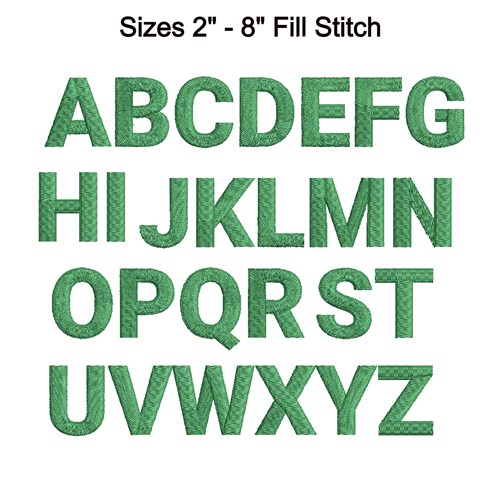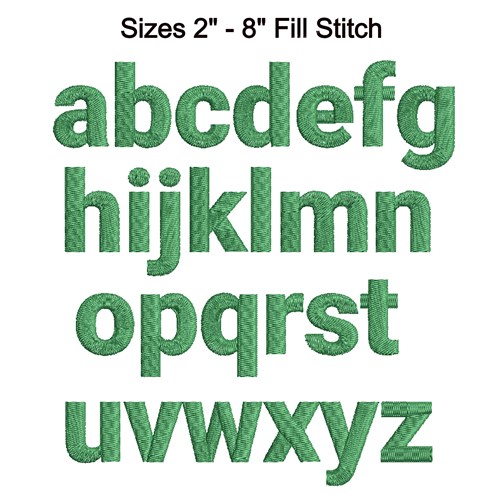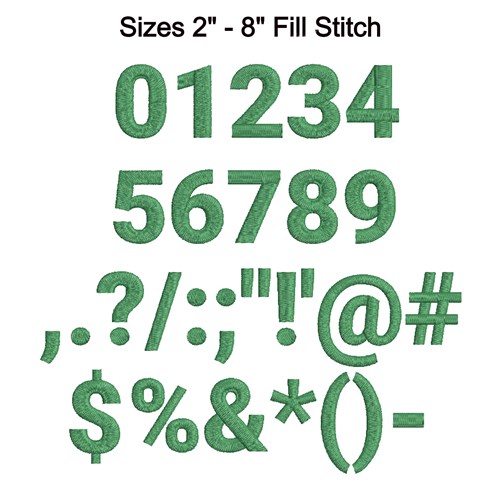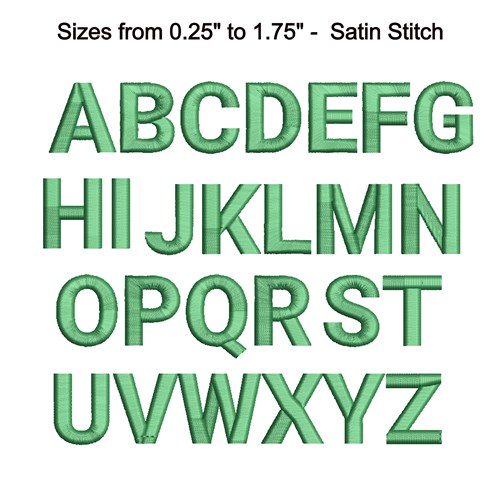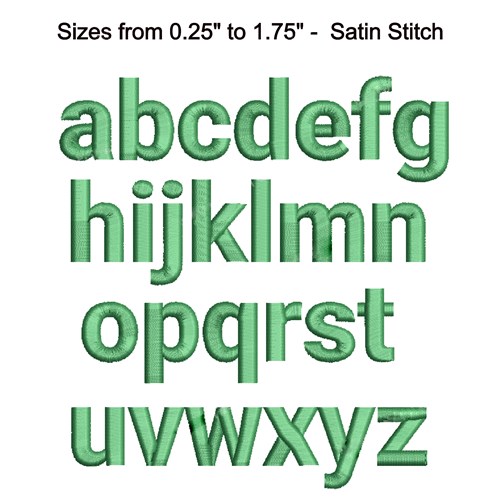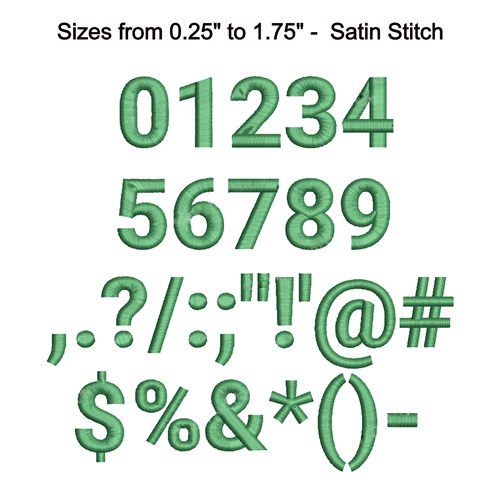
Artsy Knots is happy to present Classic Block Font machine embroidery font which has Classic block style machine embroidery font with a bold and clear appearance, ideal for designs on jackets and bags. Available in PES, DST, and six other formats for versatility in your embroidery projects. included. If you would like to view more embroidery fonts and alphabets please search our embroidery fonts page.